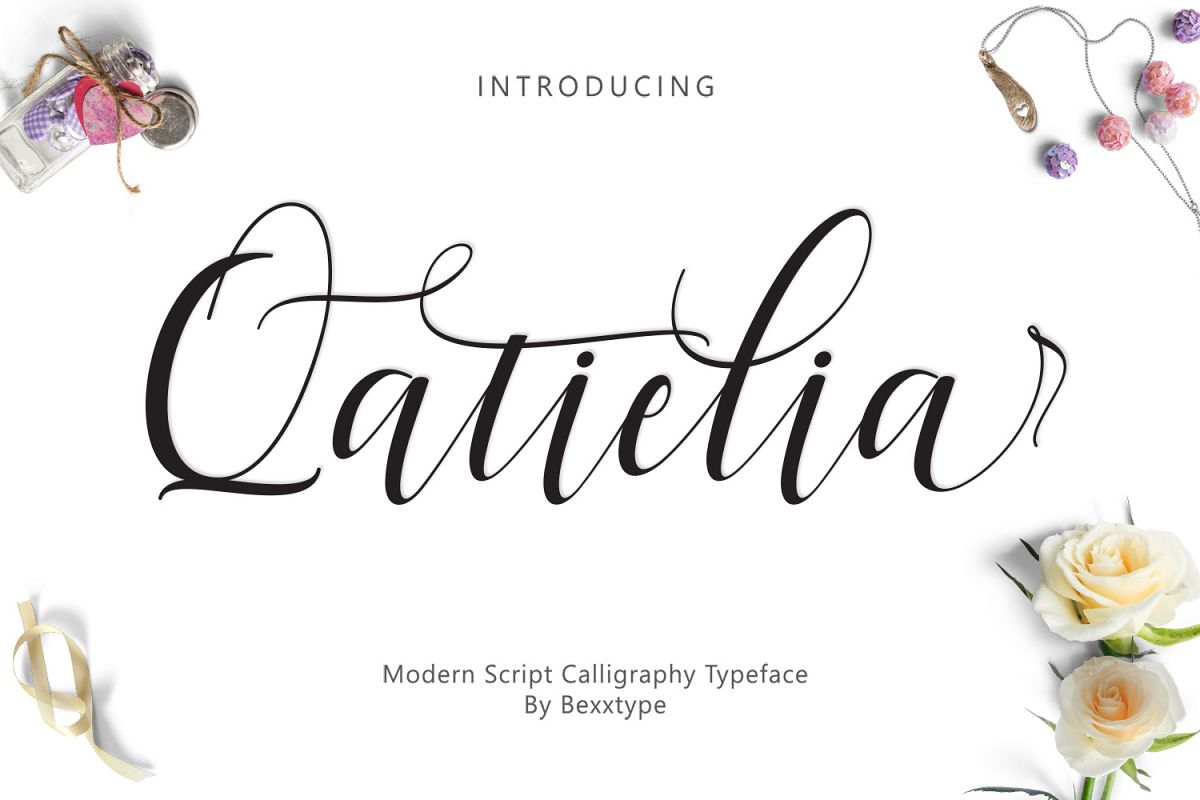
Qatielia Script | 3 Font Bonus
Qatielia Script +BonusHi everyone!Thanks for checking out Qatielia Script + BonusHope this fun!Qatielia Script is modern script font, every single letters have been carefully crafted to make your text looks beautiful. With modern script style this font will perfect for many different project, example: weddings, invitations, greeting cards, posters, name card, quotes, blog header, branding, logo, fashion, apparel, letter, stationery.